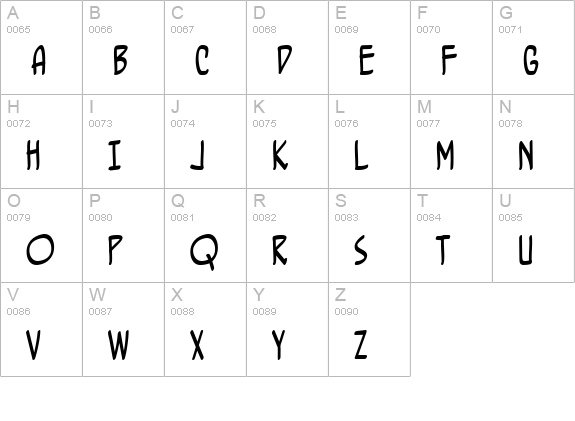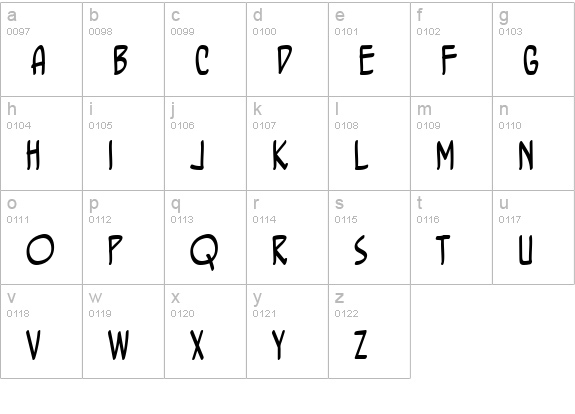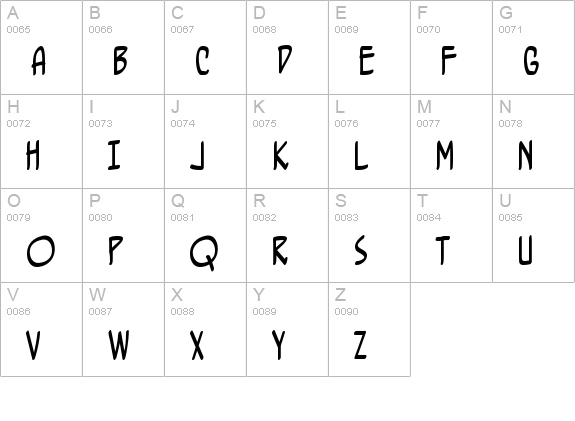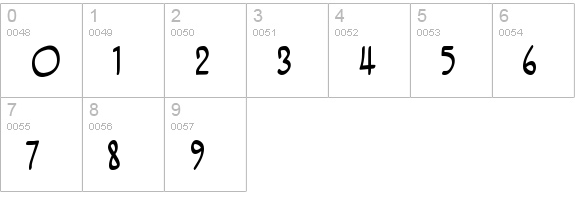
BottleRocket BB Font Details
BottleRocket BB font is a stylish and modern typeface that exudes energy and dynamism. With its bold, rounded letterforms and playful design, this font is perfect for projects that require a fun and eye-catching touch. Whether you're working on a poster, logo, or social media graphic, BottleRocket BB is sure to make your text pop. The best part? BottleRocket BB font is completely free to download at FontsMarket.com. So go ahead and add this versatile font to your collection today and let your creativity soar!